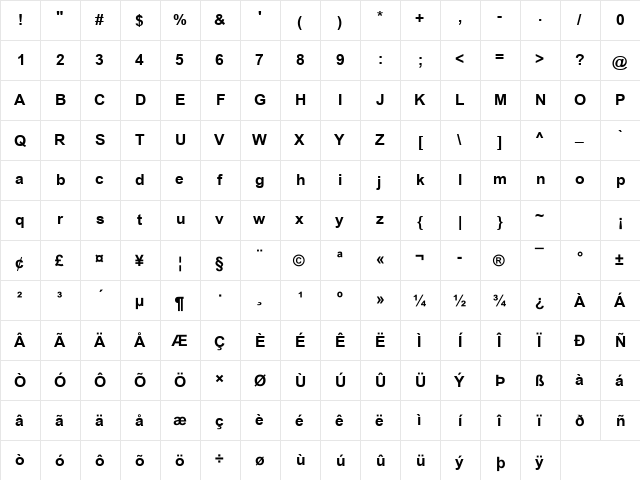
Browallia New Bold
Design Context for Browallia New Typeface
Browallia New offers clean, dependable letterforms without strong stylistic allegiance, making it a practical choice for designers who need flexibility. Its bold stroke weight gives it real presence on the page.